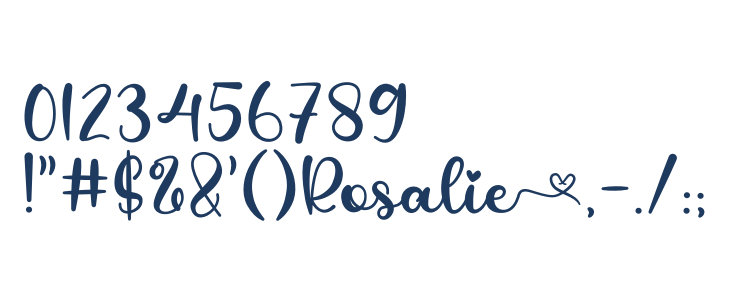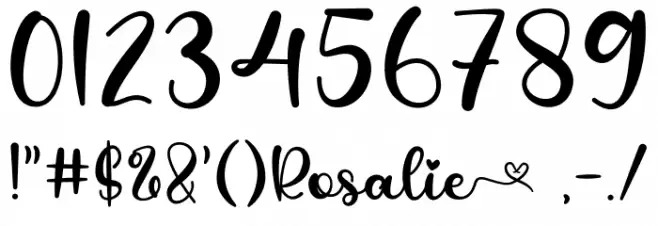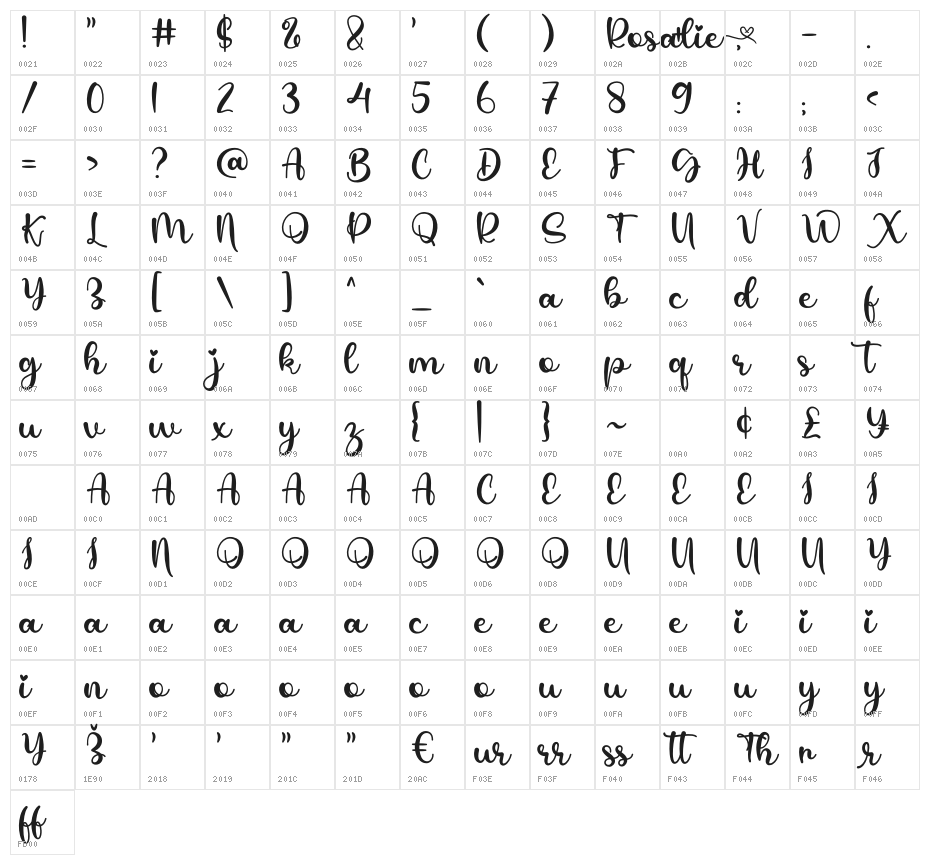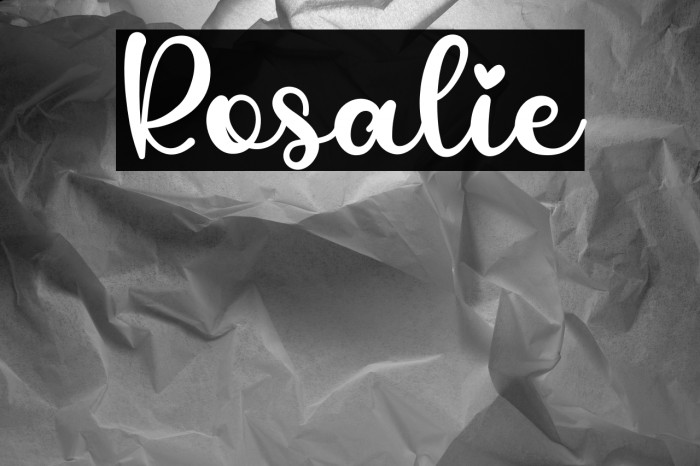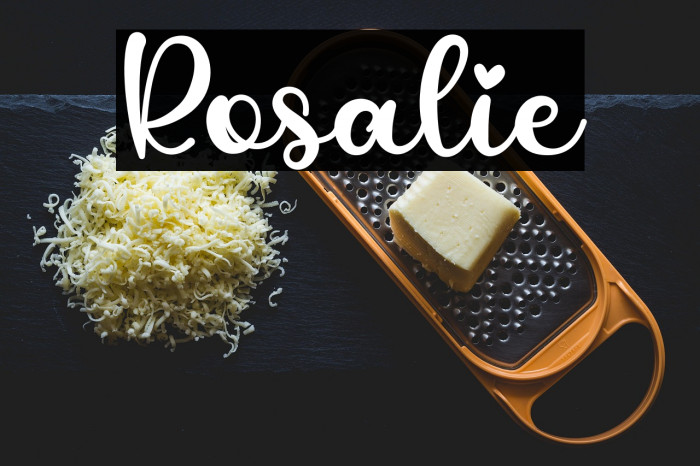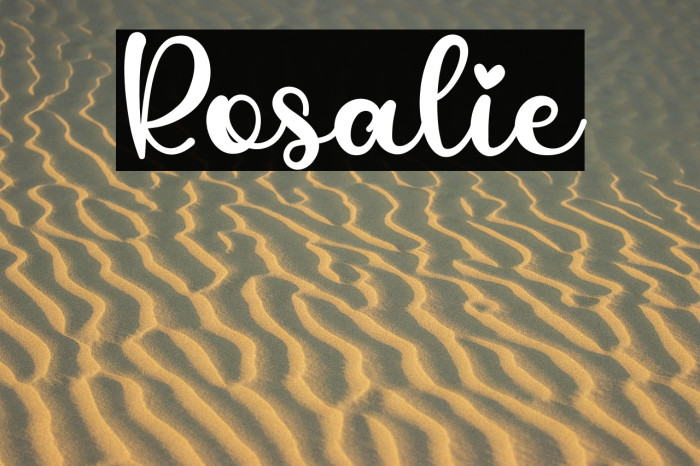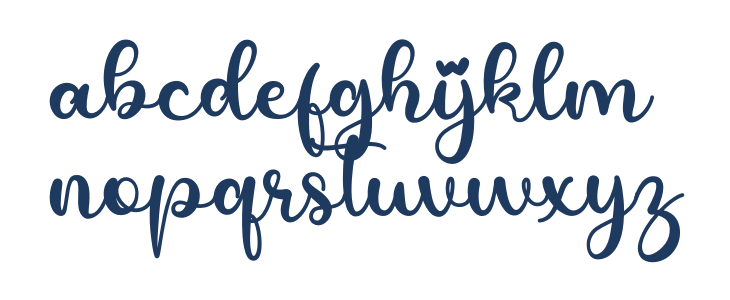
Rosalie Font
Rosalie Description
This font features a playful and elegant script style, characterized by its flowing, cursive letterforms. The uppercase letters are bold and expressive, with a slight slant that adds a dynamic feel. The lowercase letters maintain a consistent flow, with some characters featuring unique loops and swashes that enhance its decorative appeal. The numerals are clear and legible, complementing the overall style with their rounded and slightly whimsical design. Special characters are thoughtfully integrated, maintaining the font's cohesive aesthetic. This font's charm lies in its ability to convey a sense of warmth and personality, making it suitable for a variety of creative applications.
| Proposed Projects | Ideal for wedding invitations, greeting cards, branding, and social media graphics. |